17 Stop-and-Stare Bold Sans Serif Font Picks for Maximum Impact
Let’s be honest: in a digital world where everyone is scrolling at lightning speed, subtle typography will get you buried. Over the years, I’ve learned that a truly unshakeable layout always starts with a heavy hitter. That is why a massive, high-impact Bold Sans Serif Font is the ultimate backbone of my design toolkit. Here are 17 of my favorite powerhouse faces that command attention instantly.
1. Lamine Bold Sans Serif Font
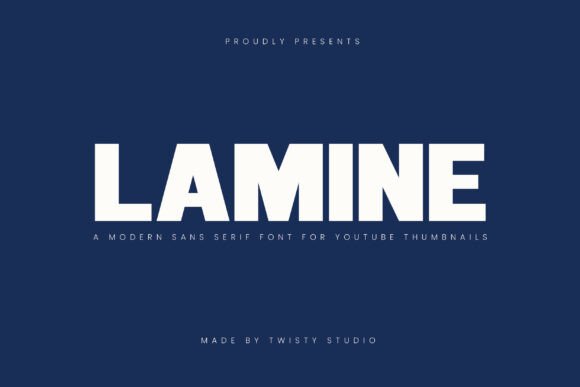
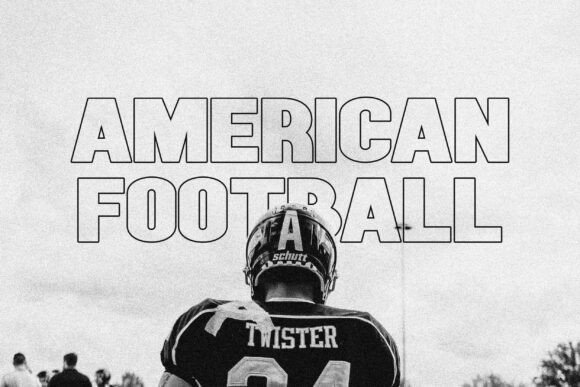
If you’ve ever spent hours perfecting a digital layout only to watch it get completely swallowed by a fast-scrolling social feed, you know how desperate the need is for a typeface that refuses to be ignored. Lamine is exactly the kind of rescue asset I look for in those situations. This incredibly punchy Bold Sans Serif Font delivers an immediate visual smack to the face, pairing rock-solid structural clarity with a contemporary, confident weight. It completely commands attention the second it hits the canvas, ensuring that your core message stays crisp, modern, and impossible to bypass.
What makes this particular Bold Sans Serif Font a permanent fixture in my digital media workflow is its phenomenal readability at incredibly small sizes. I find it to be an absolute lifesaver when designing high-conversion YouTube thumbnails or busy mobile interfaces where you only have a split second to grab a viewer’s eye. It packs a massive visual punch without ever turning into a muddy, illegible block of pixels. If your current toolkit is missing a heavy-duty, no-nonsense typeface optimized for the chaotic pace of modern content creation, adding Lamine to your collection is going to be a total game-changer.
2. Oryza Bold Sans Serif Font
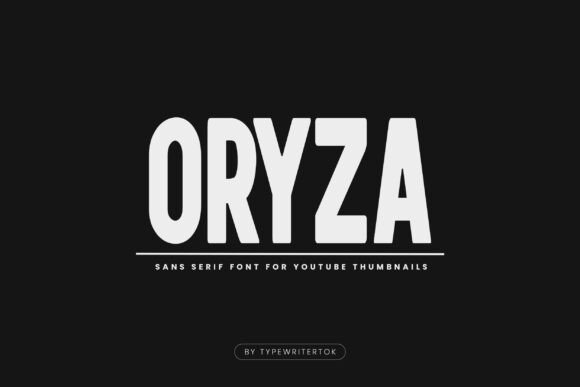
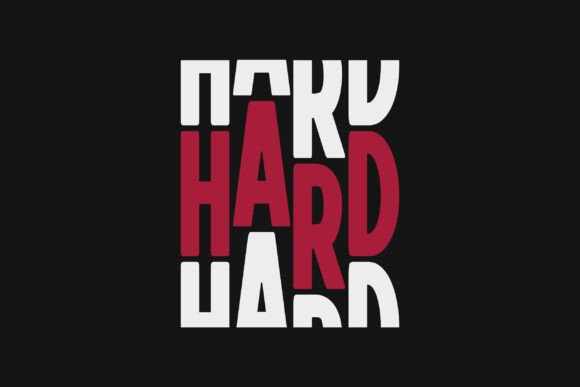
Let’s face it, keeping a viewer from scrolling right past your hard work is one of the biggest hurdles we face as creators today, which is why having a powerhouse asset like Oryza on hand is a massive relief. This exceptionally striking Bold Sans Serif Font stands incredibly tall on the canvas, bringing a sense of unshakeable confidence and crisp authority to every single word you set. It strips away any unnecessary aesthetic hesitation to deliver clean, heavyweight letterforms that anchor a layout instantly, making it an absolute dream for anyone looking to make a loud, modern statement.
In my own daily creative routine, I’ve found this specific Bold Sans Serif Font to be an incredible asset for cutting through the noisy digital landscape. It’s perfectly tailored for high-stakes, attention-grabbing visuals like aggressive YouTube thumbnails, punchy social media graphics, and bold editorial headlines where immediate readability is non-negotiable. Because it maintains phenomenal legibility even under tight constraints, Oryza gives your projects a premium, polished look while ensuring your message lands with absolute clarity. If you are a digital content creator looking to give your visual hierarchy a serious injection of power, this face is an essential upgrade for your personal toolkit.
3. Boldinda Bold Sans Serif Font
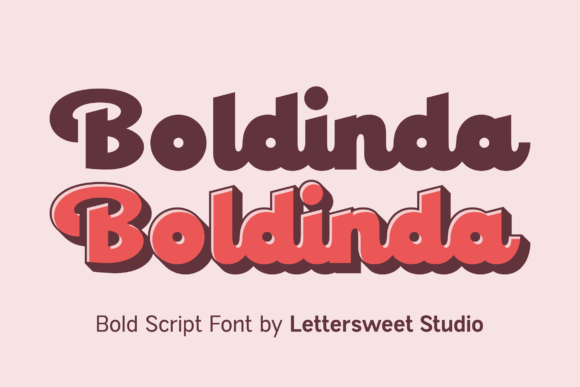
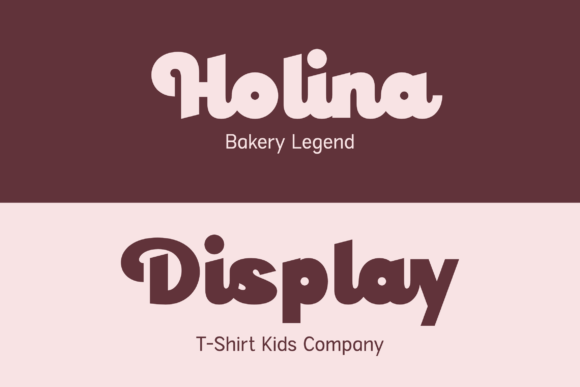
Sometimes an artboard needs a clean break from rigid grids and demands a massive injection of personality—which is exactly why Boldinda caught my eye. While it packs the heavy visual weight of a traditional Bold Sans Serif Font, it completely flips the script with a thick, friendly flow and a playful modern twist. Its chunky letterforms and smooth retro curves bring a nostalgic charm that immediately commands the screen without ever feeling cold or clinical.
What makes this asset shine in practice is how its soft, rounded edges maintain incredible readability despite its dense, high-impact weight. It’s an absolute powerhouse for custom merchandise, bold packaging, and social graphics that need to pop against a fast-scrolling feed. Letting its natural, handwritten rhythm handle a main headline works like a dream, and adding this unique Bold Sans Serif Font to your mix will instantly inject your contemporary branding with a massive boost of approachable power.
4. Combo Bold Sans Serif Font
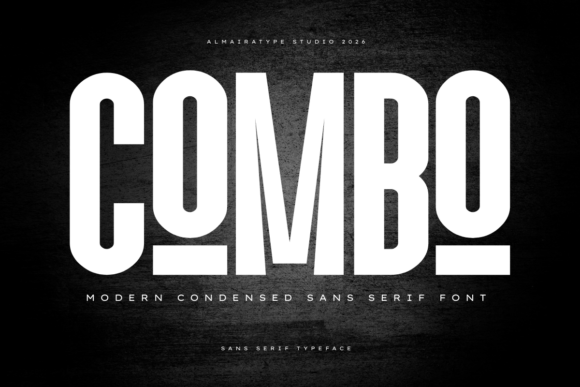
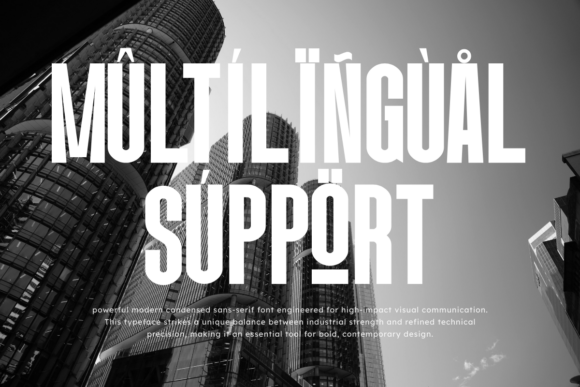
Fitting a high-impact headline into a tight space without losing a premium edge is a constant struggle, which is why Combo is a permanent fixture in my toolset. This tall, condensed Bold Sans Serif Font perfectly pairs clean geometric lines with a sturdy, commanding structure. It narrows character width without sacrificing an ounce of weight, making it an absolute lifesaver for cinematic posters or industrial branding where horizontal space is at a premium.
What makes this specific Bold Sans Serif Font a total workhorse is how effortlessly it adapts from digital screens to print-on-demand merch. Its sharp finish ensures crisp readability, making it a stellar pick for sports apparel, punchy YouTube thumbnails, and large-scale signage. If you need a space-saving powerhouse that turns tight layouts into bold visual statements, Combo is a must-install.
5. Smack Dog Bold Sans Serif Font
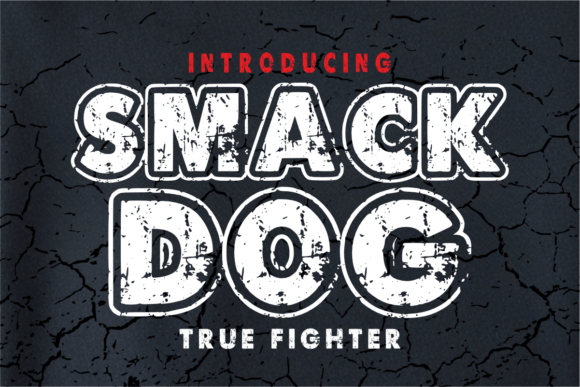
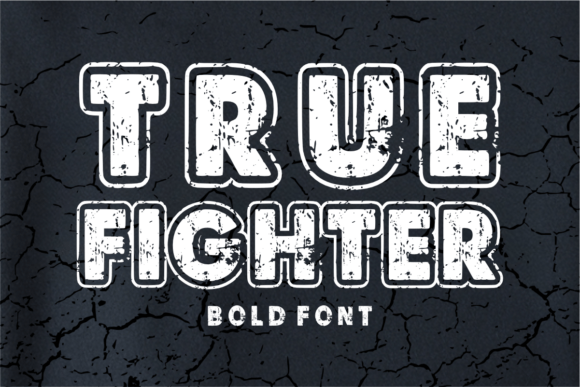
Sometimes standard, clean lines just won’t cut it, and you need a typeface that looks like it survived a street fight. That is precisely why Smack Dog instantly grabbed my attention. This all-uppercase Bold Sans Serif Font perfectly mashes up a modern fighter aesthetic with a rugged, cracked grunge texture. Featuring an outlined structure for extra visual weight, it injects an aggressive, raw energy into the artboard that completely refuses to blend into the background.
Conclusion
At the end of the day, standing out in a crowded feed isn’t about overcomplicating your artwork—it’s about making your typography do the heavy lifting. Every single Bold Sans Serif Font on this list brings a unique, undeniable energy to the table, whether you need raw urban texture or futuristic precision. Drop them onto your canvas, break your grids, and watch your layouts transform.